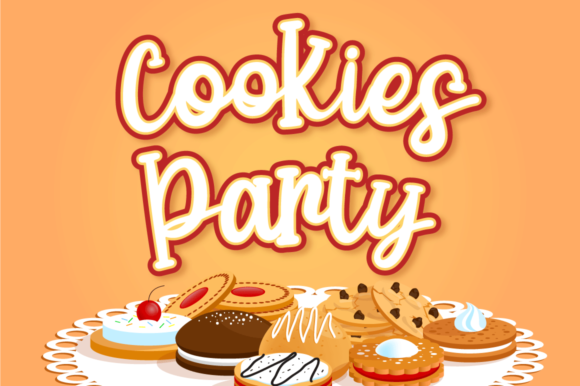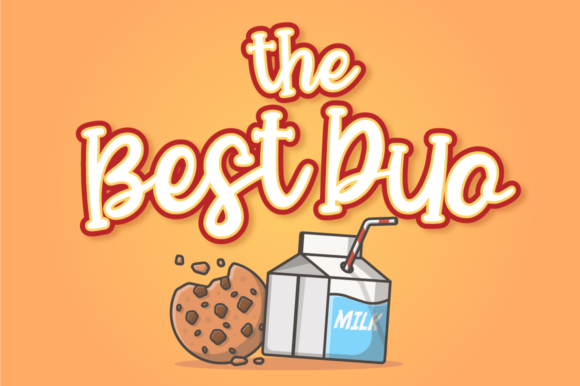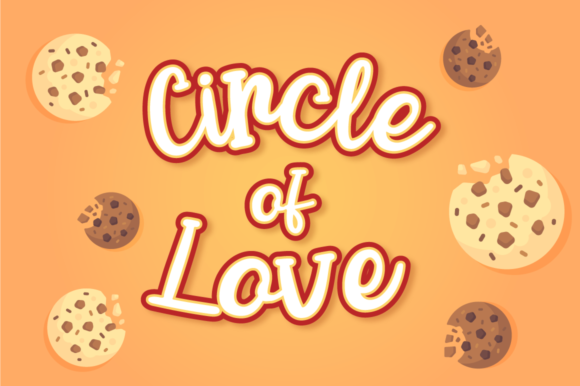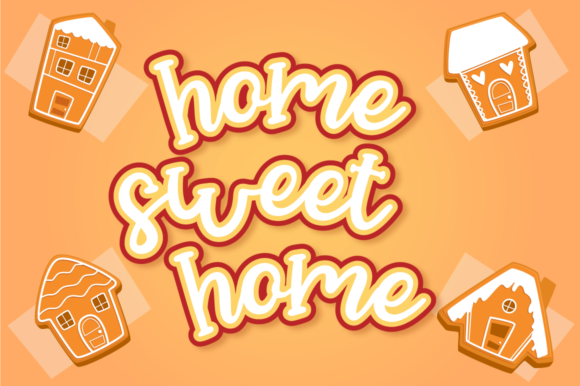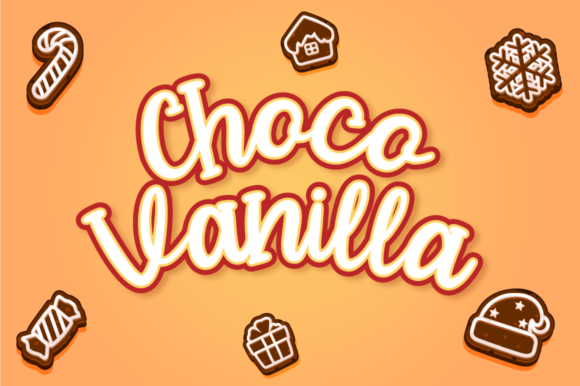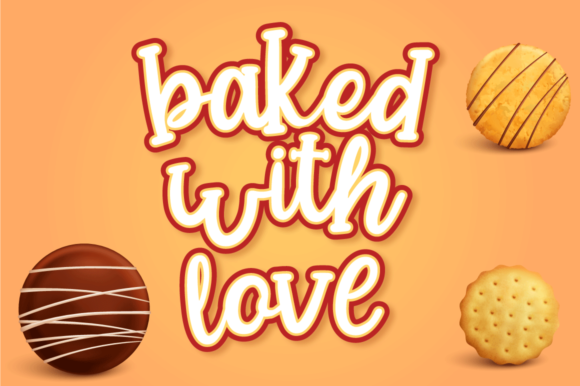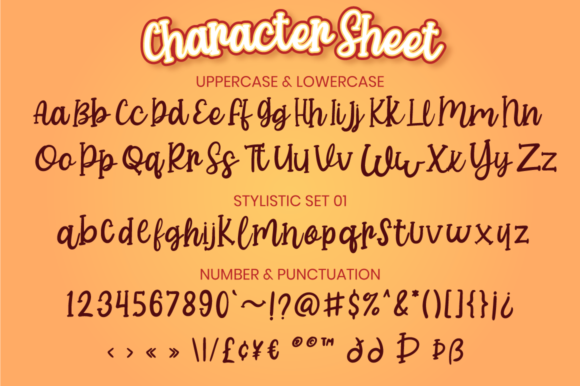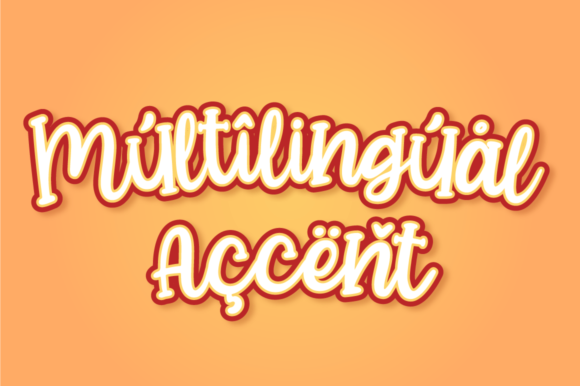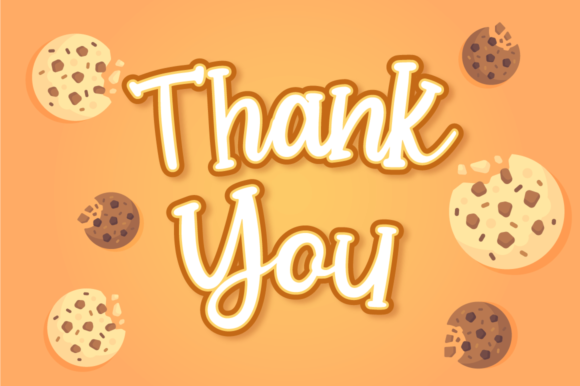
Cookies Party Font
About Cookies Party Font
Cookies Party embodies fun, quirkiness and authenticity. This enchanting handwritten font will turn any creative idea into a true standout.